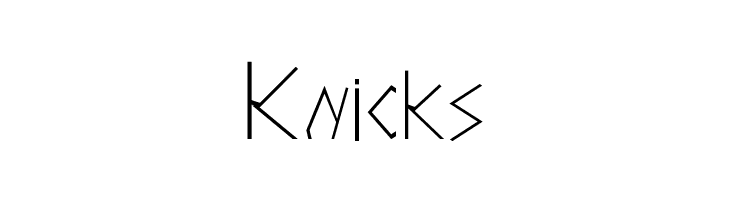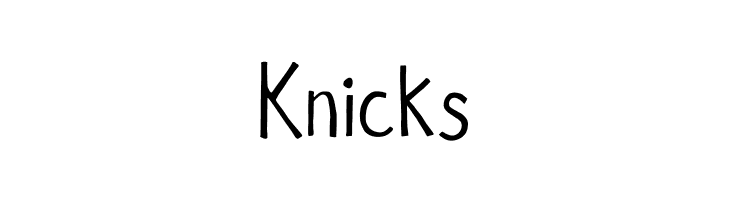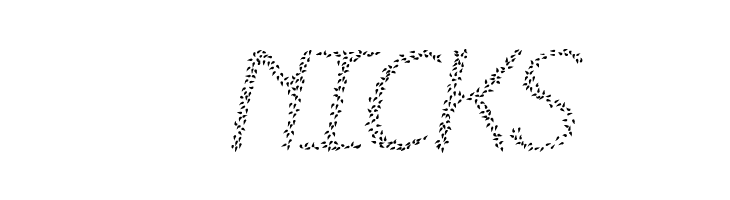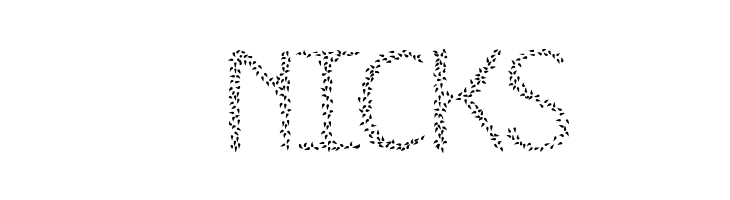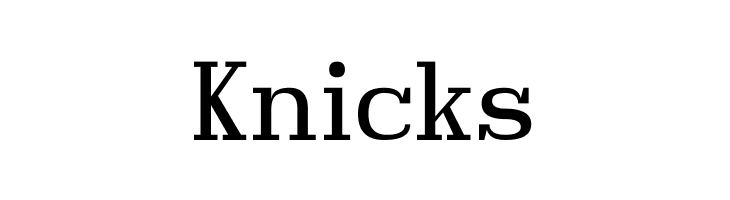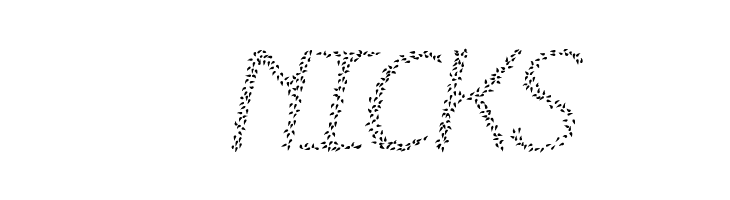
A modern serif font with clean lines and balanced proportions.
A bold, playful handwritten font with fluid strokes and a casual style.
A playful, hand-drawn font with tall, narrow letterforms and a whimsical style.
A playful, nature-inspired font with characters formed by leaf-like elements.
A decorative, nature-inspired italic font with a leaf-like pattern.
A playful, handwritten font with uneven strokes and a casual style.
An elegant, cursive script font with ornate, flowing strokes.
A lively, cursive font with elegant, flowing strokes.
A modern, angular font with a unique shadow effect for a 3D appearance.